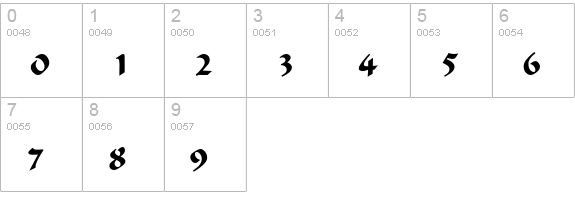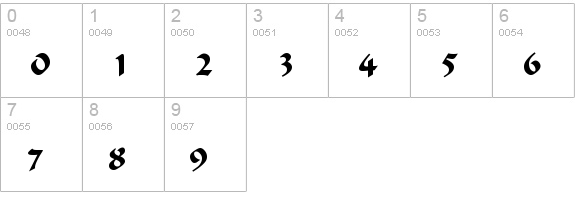
Kunibert Font Details
Kunibert font is a beautifully crafted typeface that exudes elegance and sophistication. With its sleek lines and modern design, Kunibert is perfect for a wide range of design projects, from branding to packaging to editorial design. This versatile font is sure to make your text stand out and leave a lasting impression on your audience. What's even better is that Kunibert font is completely free to download at FontsMarket.com. Yes, you read that right - you can enhance your designs with this stunning font without spending a penny. So why wait? Download Kunibert font now and take your projects to the next level with this stylish and eye-catching typeface.